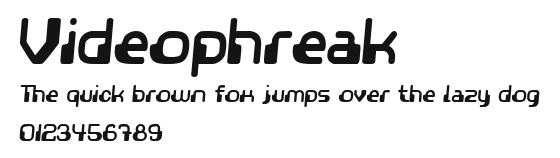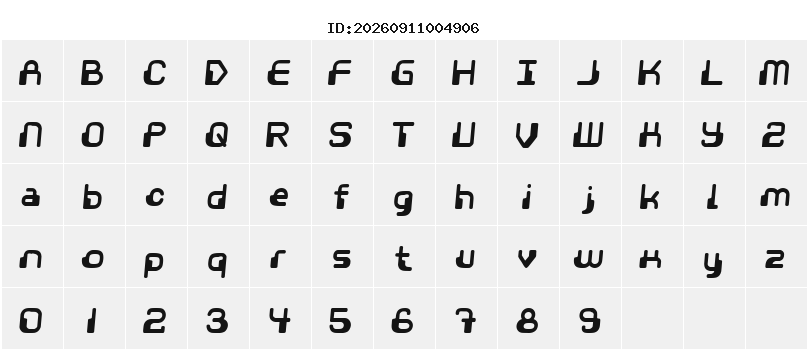
• Font Name: Videophreak
• Font ID: Videophreak
• Full Font Name: Videophreak
• PostScript Name: Videophreak
About Videophreak.ttf
Videophreak.ttf is a modern, elegant sans-serif font designed for ultimate readability and visual harmony. Perfect for branding, headlines, web design, and print materials.